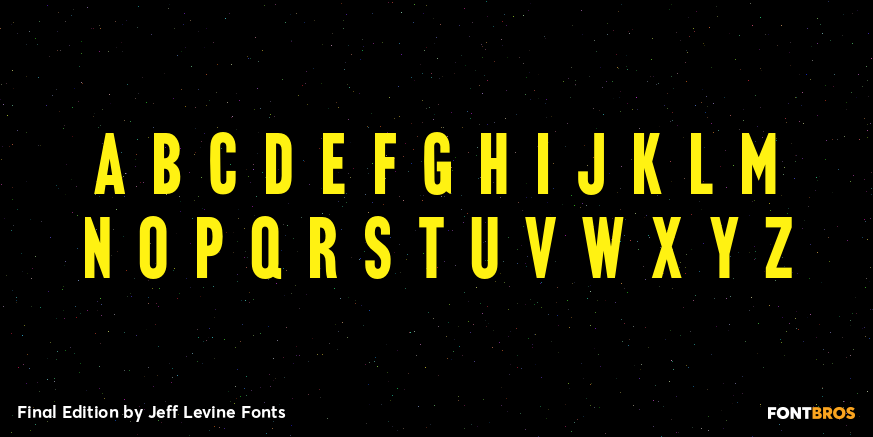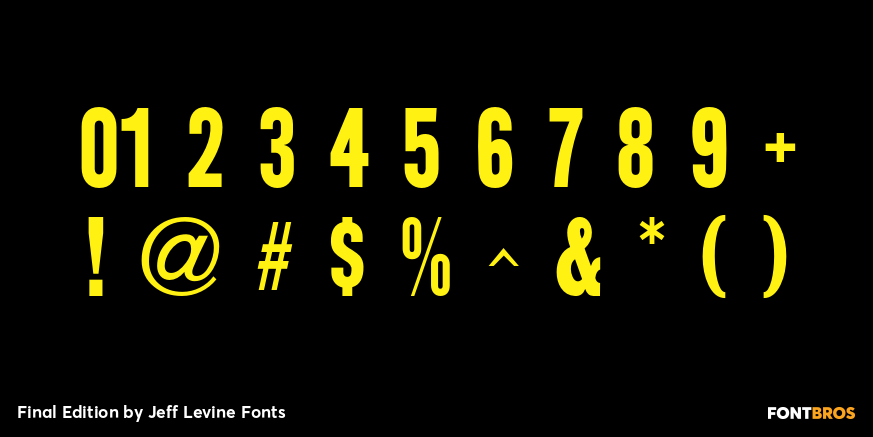
Final Edition
A classic sans grotesk wood type design, Final Edition JNL was modeled from actual headlines found in online examples of an old daily newspaper.